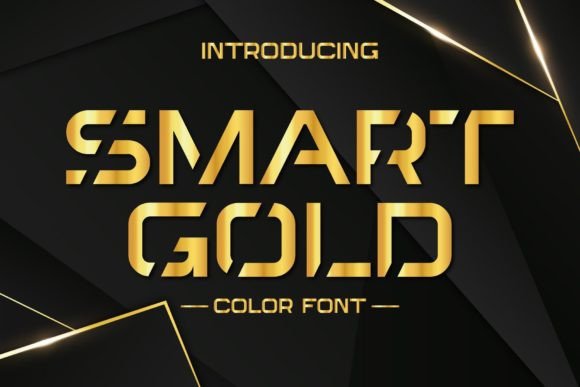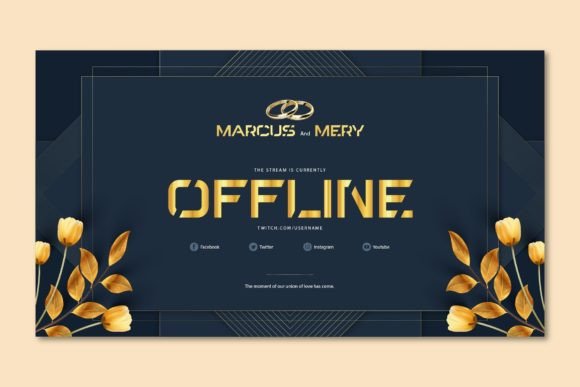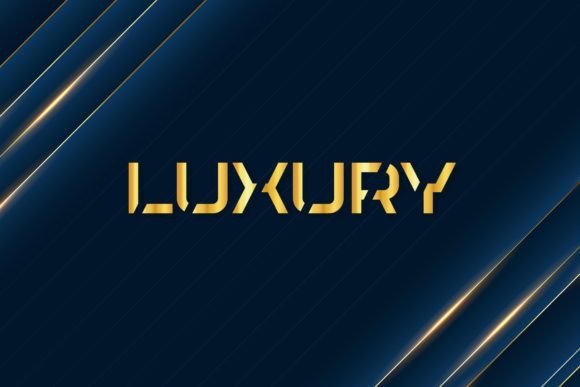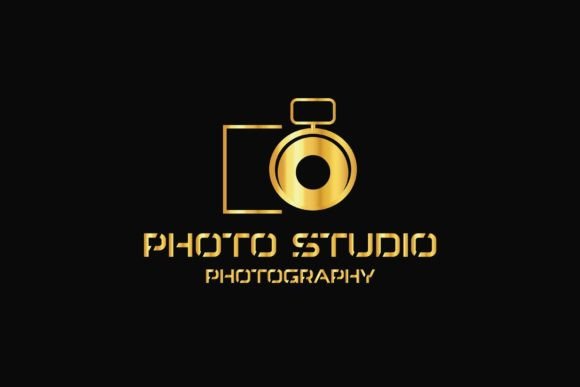
Smart Gold Font
About the Smart Gold Font
Make a bold statement with Smart Gold Font, a powerful and memorable font. Smart Gold is a gold font with a modern design. Can be used on a variety of occasions and has a golden color that looks luxurious. This beautiful and professional typeface is suitable for film posters, headlines, block letters, subheadings, logo designs, and so much more. Add it to your creative ideas and notice how it makes them stand out!